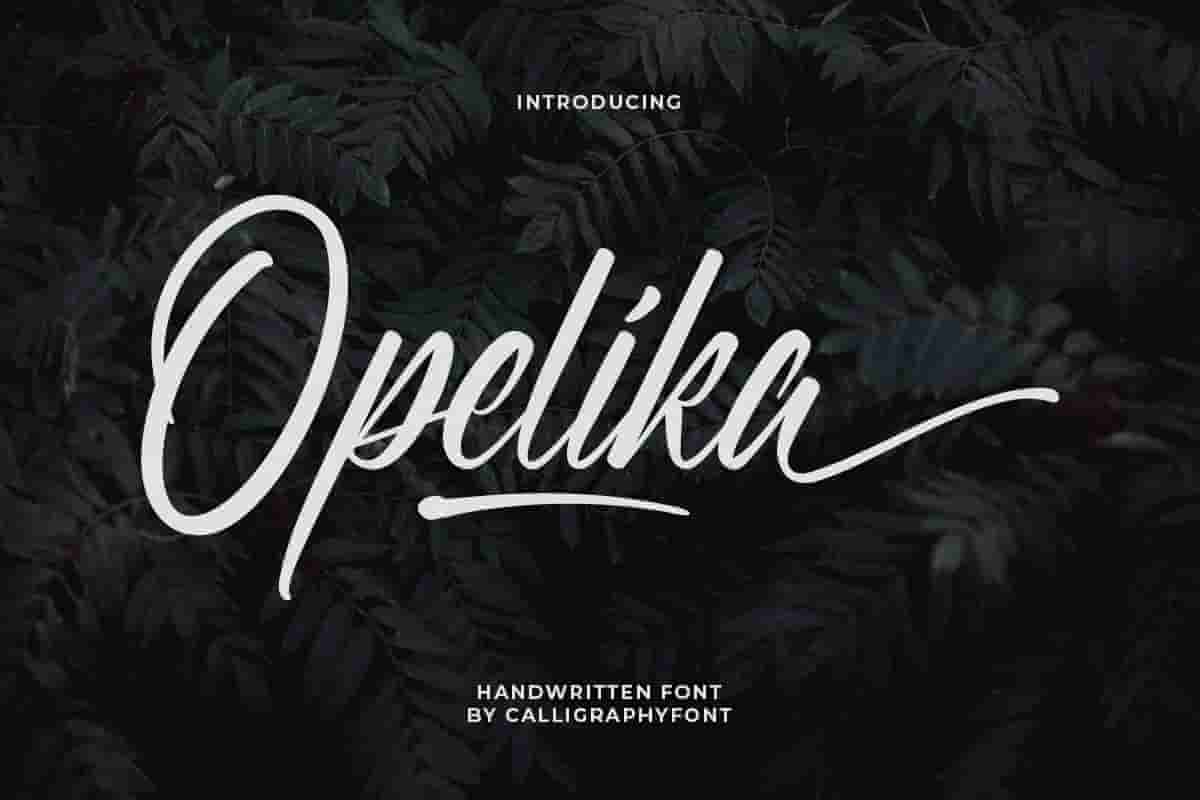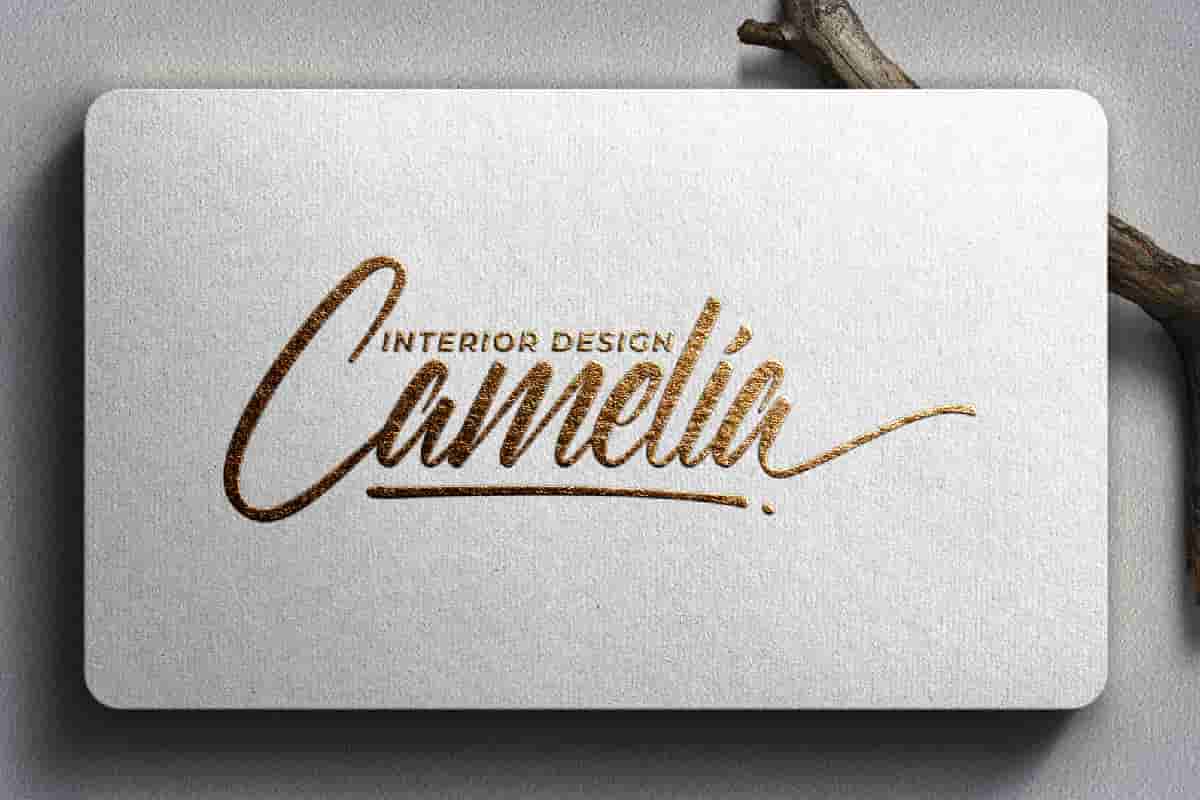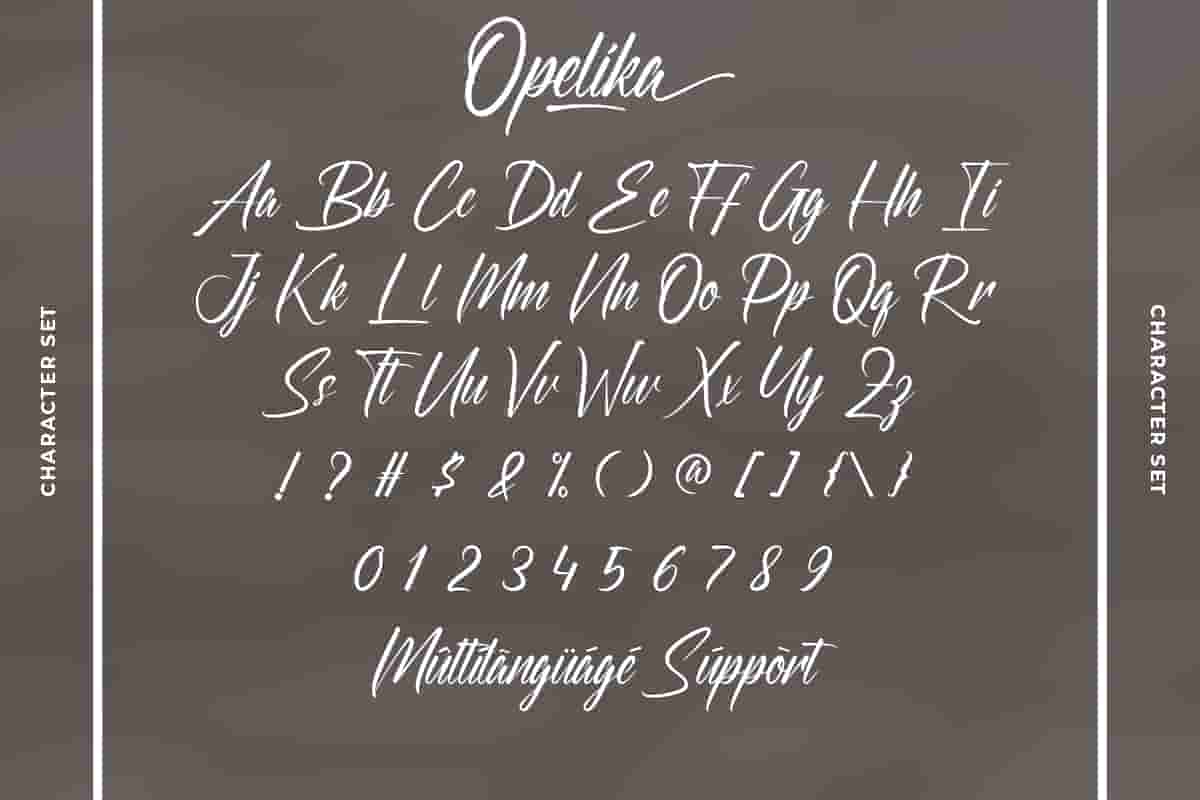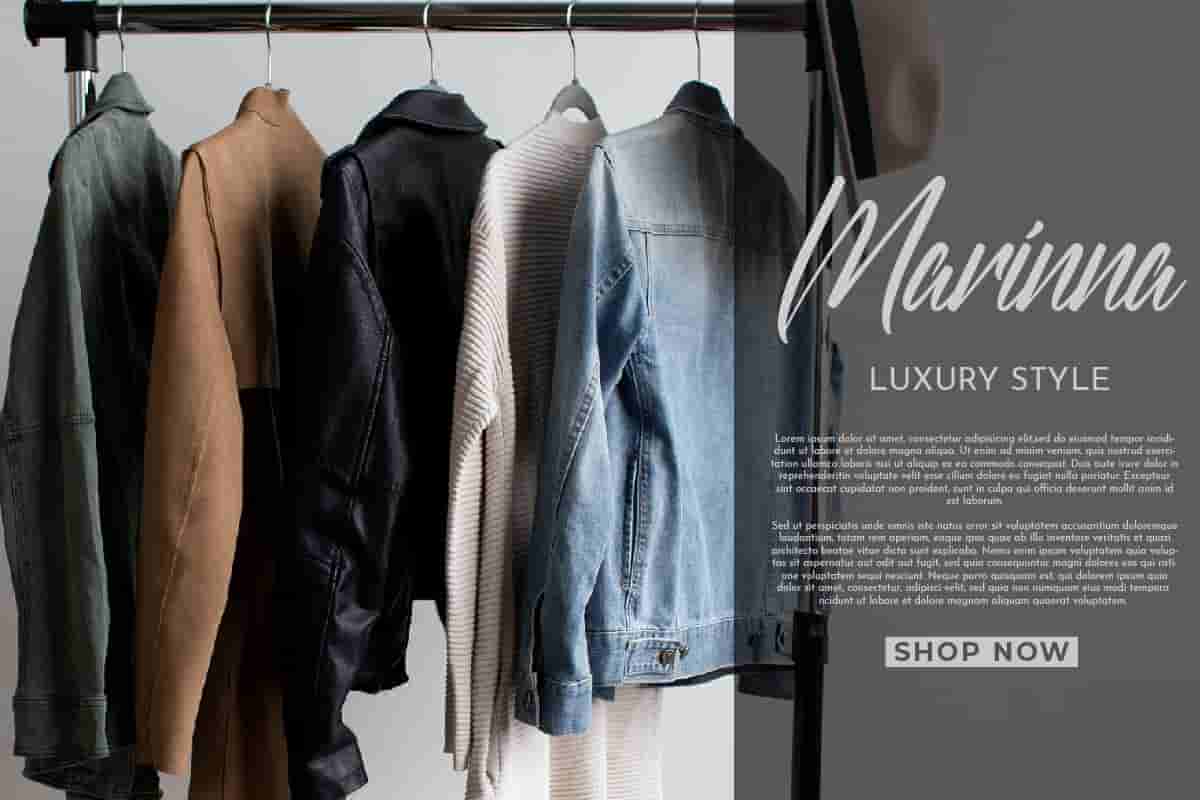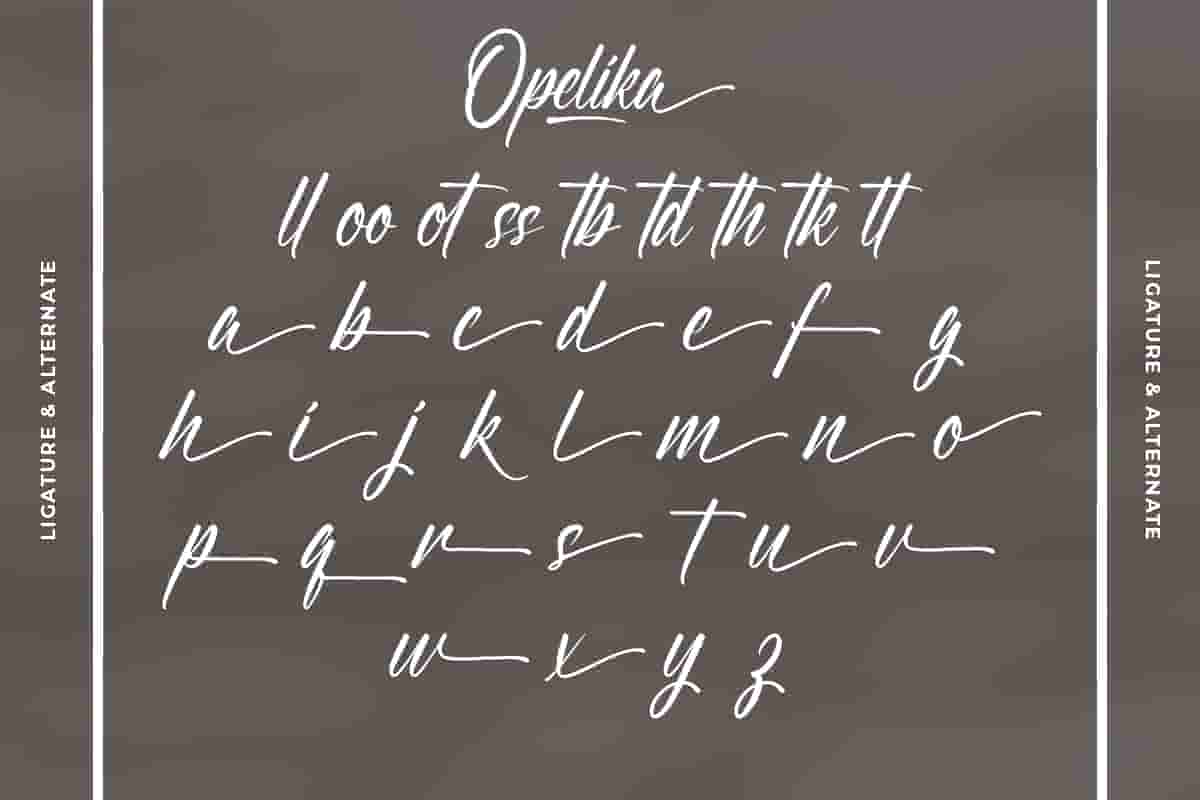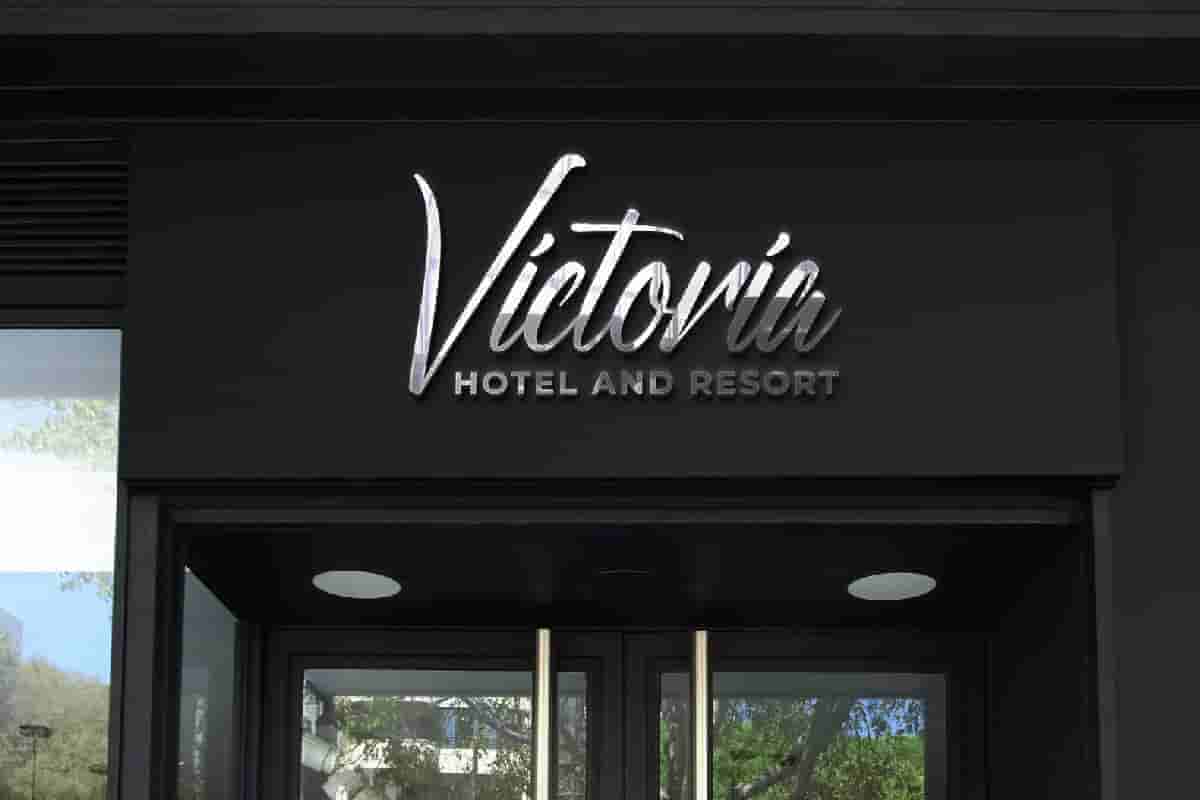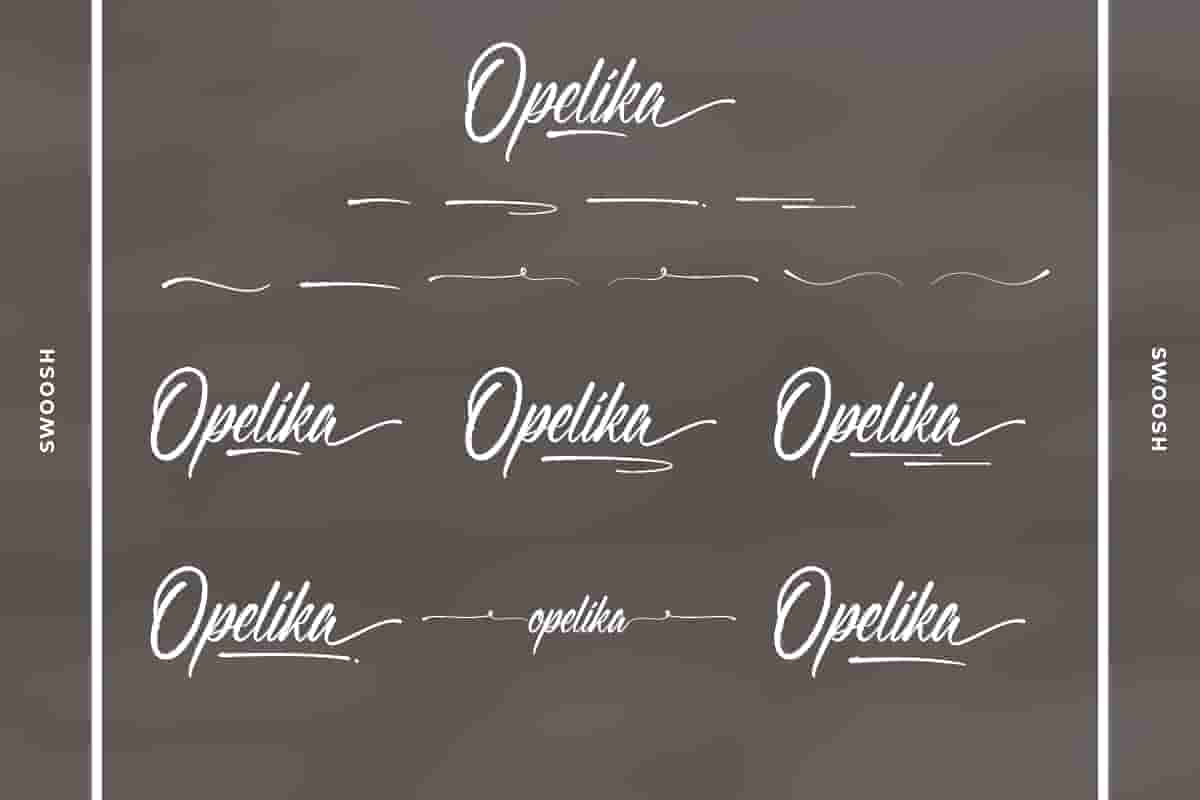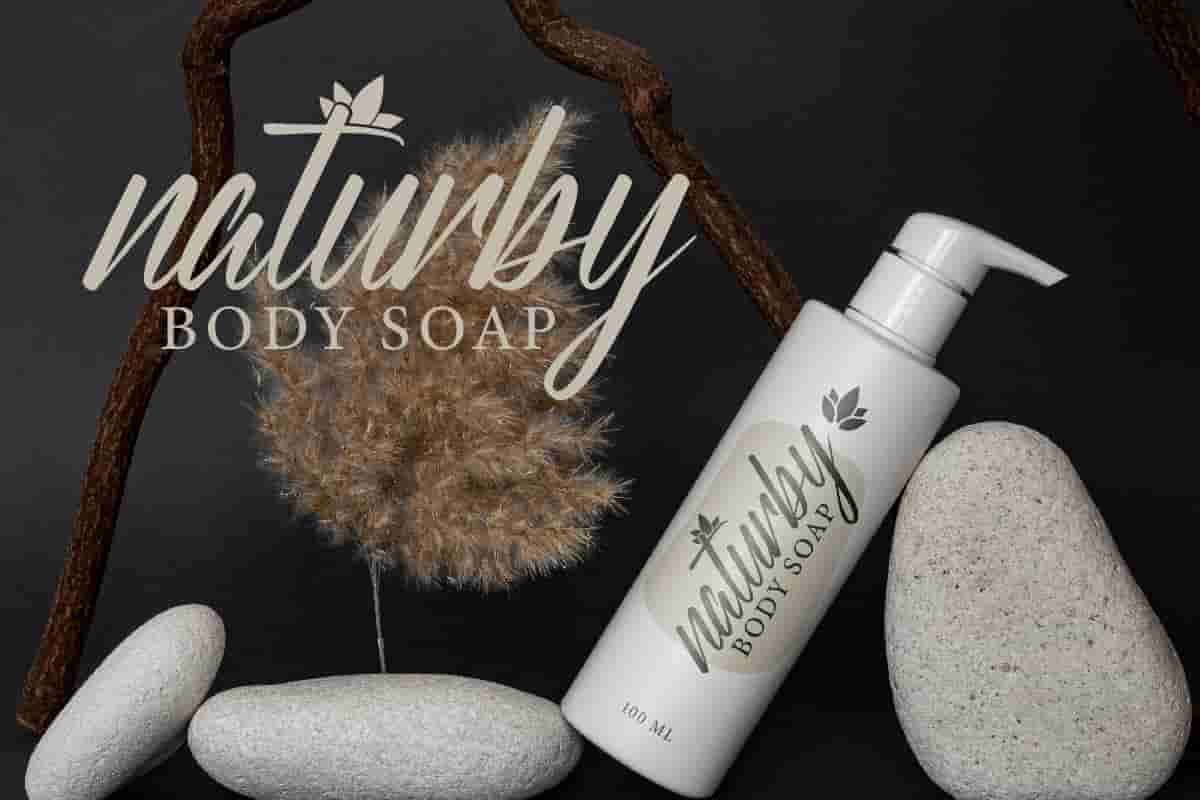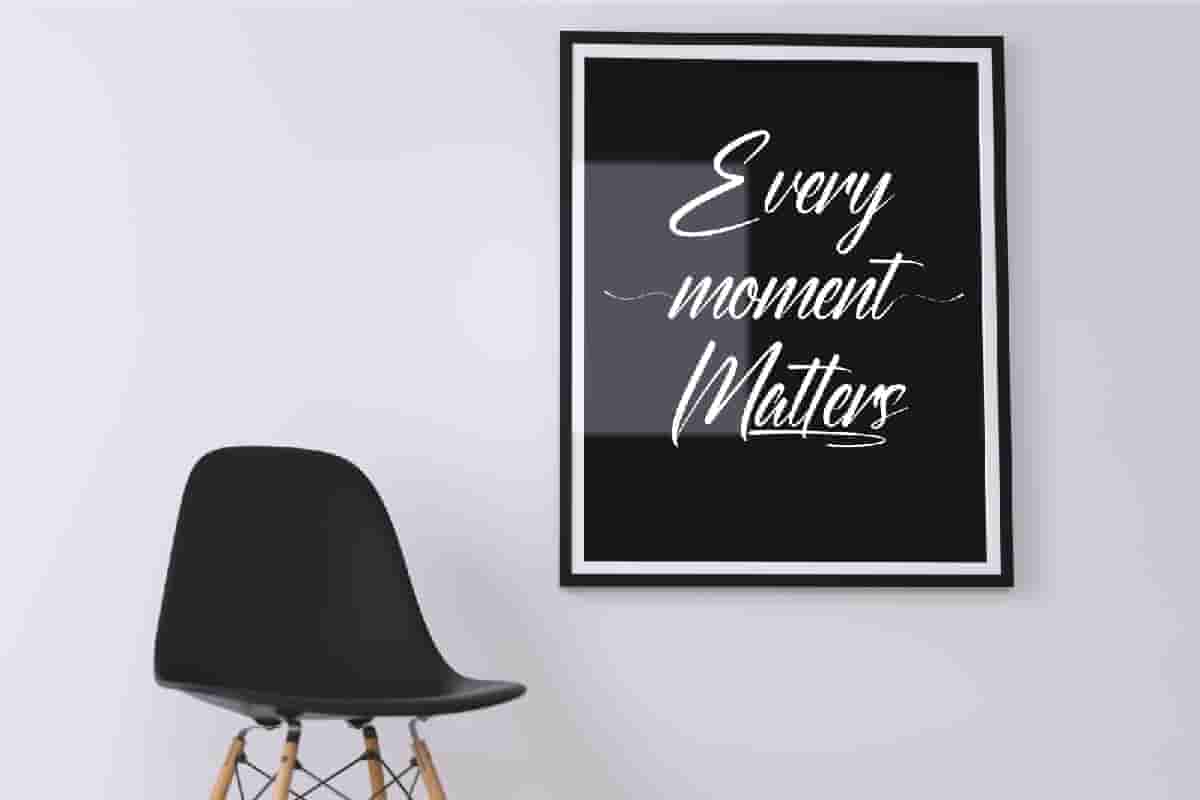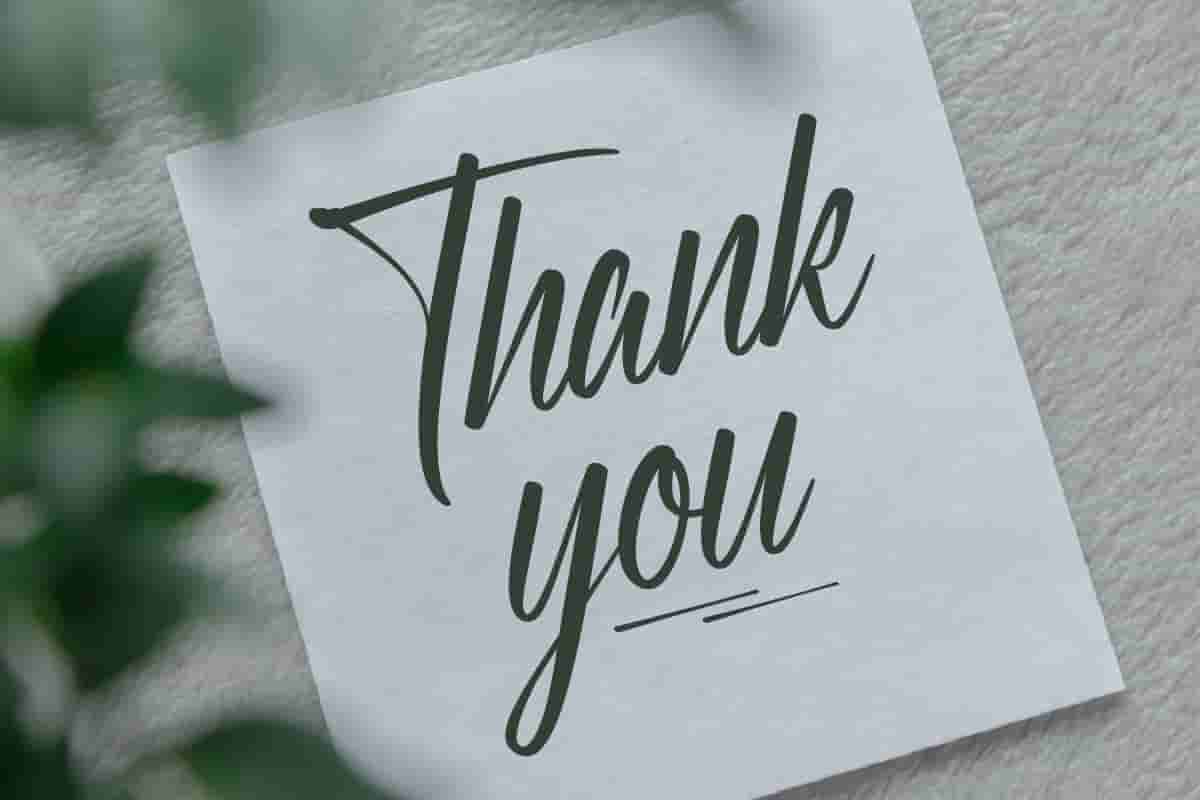
Opelika Calligraphy Font
Opelika Font is a stunning calligraphy font by CalligraphyFonts.net. It has sophisticated characters that will be awesome for social media, video, logotype, invitation, flyer etc
Opelika is a unique handwritting calligraphy font. It has unique looks that are beautiful, modern, elegant, luxury, lettering and sophisticated brush font.
Stand out in a crowded market with Opelika—a font that communicates sophistication, creativity, and style in every letter.